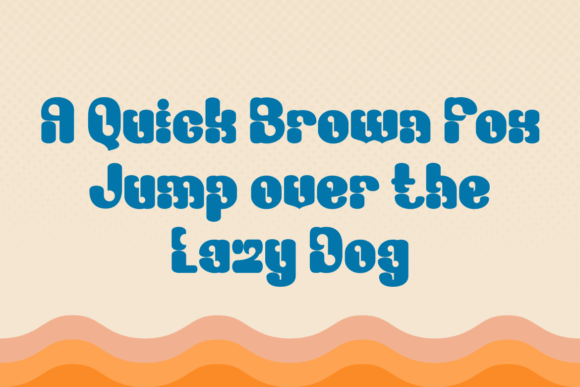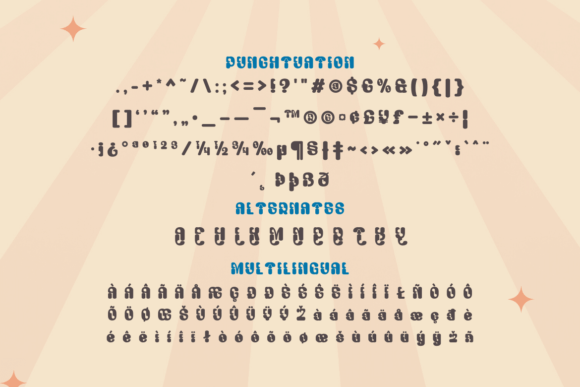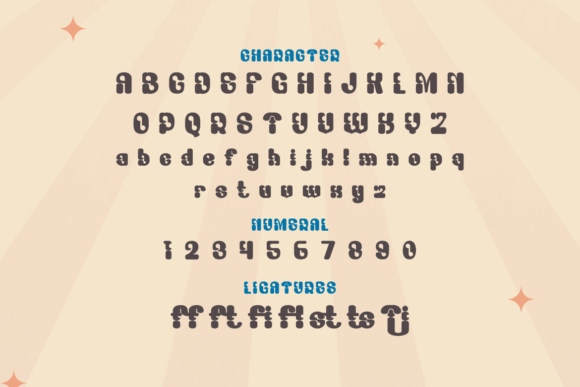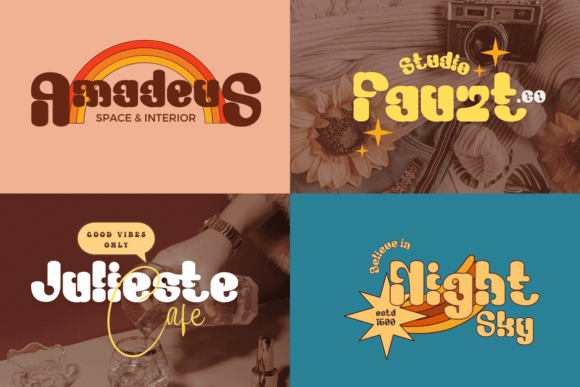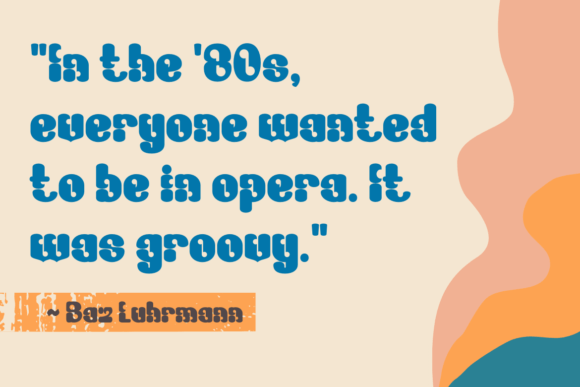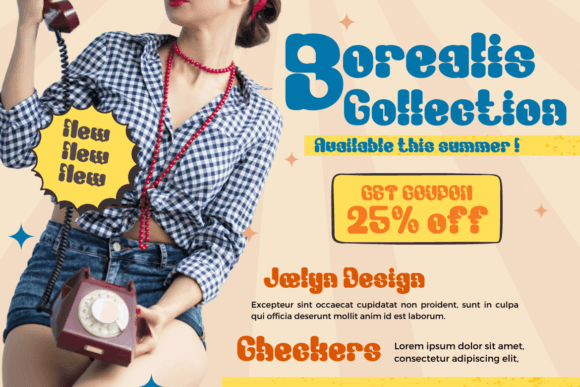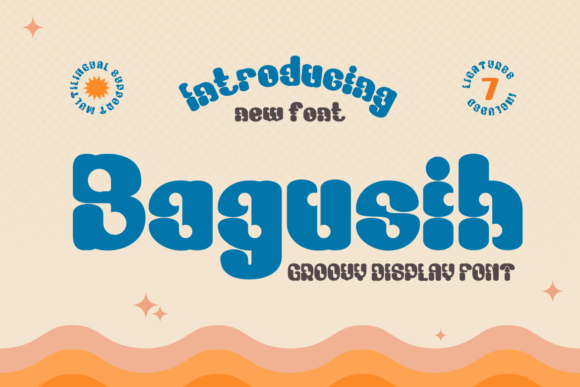
Introducing Bagusih Font: The Perfect Choice for Bold and Unique Designs
In the world of design, typography plays a crucial role in conveying the message and aesthetic of a project. With so many fonts to choose from, it can be overwhelming to find the perfect one that stands out from the crowd. However, if you’re looking for a font that embodies a bold, unique look with a retro twist, look no further than Bagusih Font.
What is Bagusih Font?
Bagusih Font is a carefully crafted typeface that draws inspiration from the iconic designs of the 1960s. Its retro-style design makes it perfect for designers who want to create a vintage aesthetic or give their projects a groovy feel. With its bold and eye-catching appearance, Bagusih Font is sure to make your designs stand out from the rest.
Key Features of Bagusih Font
So, what makes Bagusih Font so special? Here are some of its key features:
- Retro-style design: Bagusih Font boasts a unique retro-style design that’s reminiscent of the 1960s. Its bold lines, curves, and geometric shapes make it a perfect fit for designers who want to create a vintage-inspired aesthetic.
- Bold and eye-catching: This font is designed to make a statement. Its bold and eye-catching appearance ensures that your designs will grab attention and leave a lasting impression.
- Unique and distinctive: Unlike other fonts, Bagusih Font has a unique and distinctive look that’s sure to set your designs apart from the crowd.
- Versatile: Whether you’re working on a branding project, a website, or a craft project, Bagusih Font is versatile enough to fit a wide range of design needs.
Who is Bagusih Font for?
Bagusih Font is perfect for designers, crafters, and anyone who wants to add a touch of retro flair to their projects. Here are some examples of who can benefit from using this font:
- Graphic designers: If you’re working on a branding project, a logo, or a brochure, Bagusih Font can add a unique and eye-catching touch to your designs.
- Web designers: Add a retro twist to your website design with Bagusih Font. Its bold and eye-catching appearance is sure to make your website stand out.
- Crafters: If you’re working on a craft project, such as making vinyl signs, stickers, or iron-on transfers, Bagusih Font can add a fun and playful touch to your designs.
- Small business owners: If you’re looking for a unique font to use for your business branding, Bagusih Font can help you establish a bold and memorable identity.
In conclusion, Bagusih Font is the perfect choice for designers and crafters who want to add a bold, unique look to their projects. With its retro-style design, bold and eye-catching appearance, and versatility, this font is sure to make your designs stand out from the crowd. Whether you’re working on a graphic design project, a website, or a craft project, Bagusih Font is a great choice for anyone who wants to create a memorable and eye-catching aesthetic.